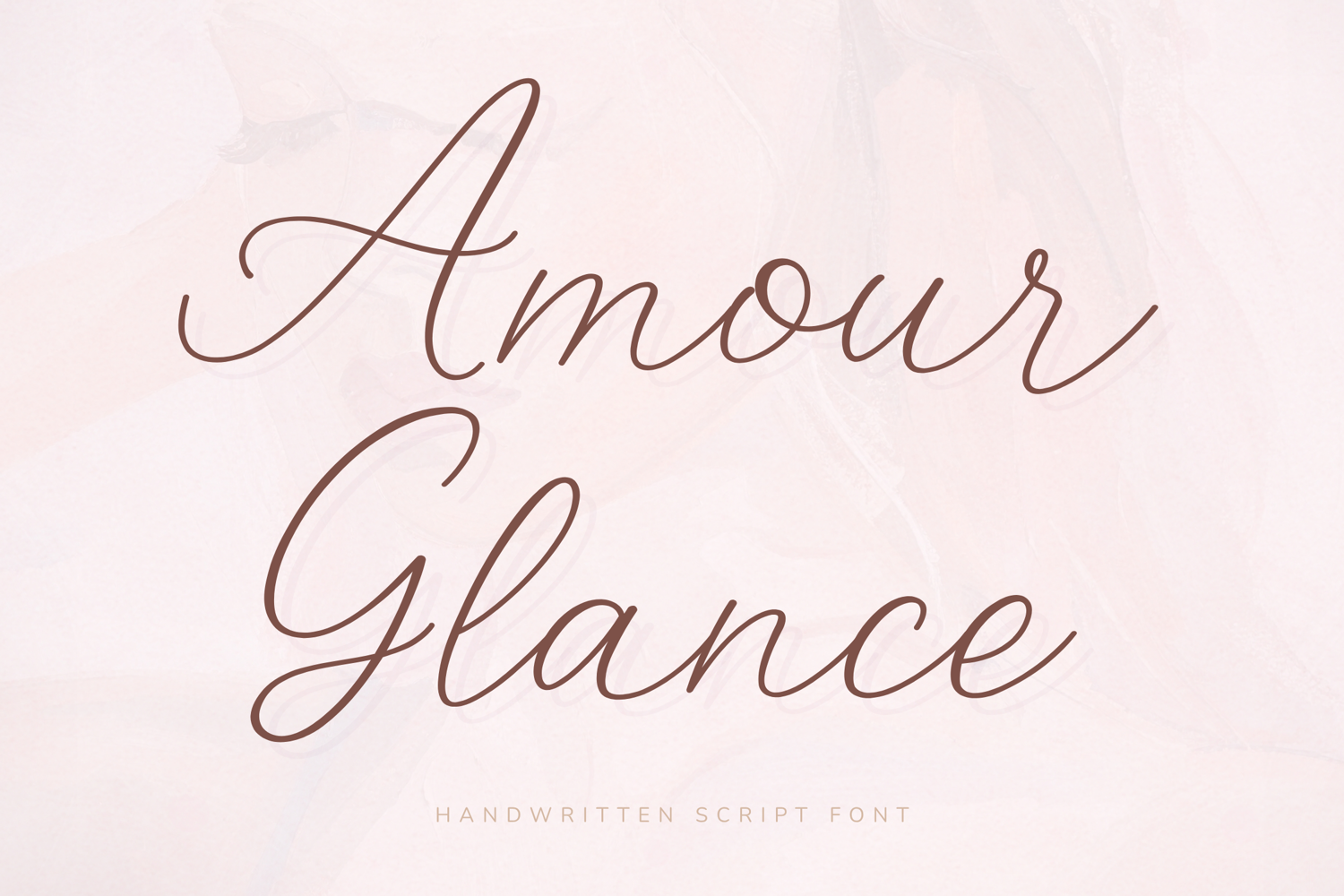
Amour Glance - Elegant Handwritten Script Font
Amour Glance is a delicate and elegant handwritten script font designed to bring a romantic, refined, and graceful touch to your creative projects. With its thin flowing strokes, soft curves, and stylish handwritten movement, this font creates a sophisticated look that feels both timeless and feminine.
Carefully crafted for premium design use, Amour Glance works beautifully for branding, wedding invitations, beauty logos, packaging, social media graphics, and lifestyle designs. Its graceful script style adds an elegant personality while maintaining a clean and polished appearance.
Key Features:
Full set of uppercase and lowercase letters
Elegant handwritten script style
Thin flowing strokes and graceful curves
Numerals, punctuation, and symbols
Ideal For:
Wedding invitations and stationery
Branding and logo design
Beauty and boutique
Packaging and product labels
Social media graphics
Elegant lifestyle designs
Amour Glance is designed with graceful flow, refined curves, and a soft romantic feel, making it perfect for designs that need an elegant and feminine handwritten touch.